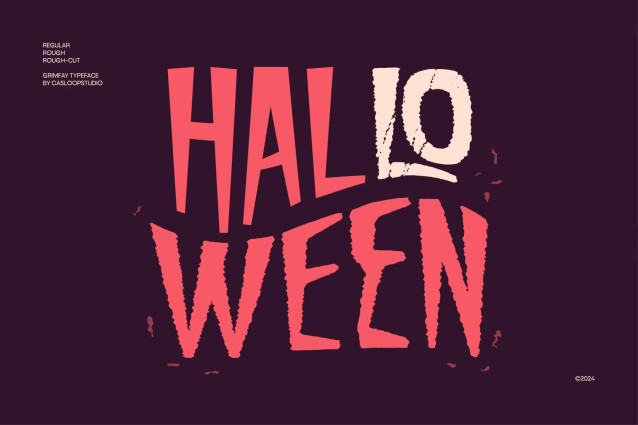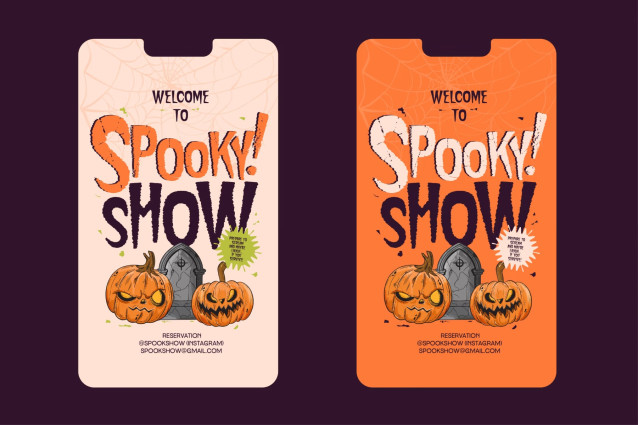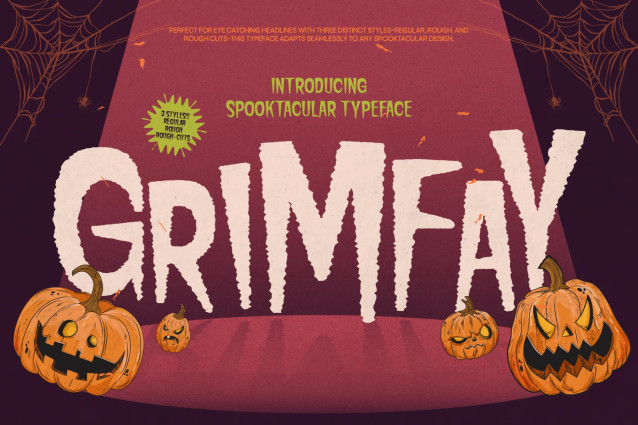
Grimfay – Horror Halloween 3 Fonts
Dive into the chilling world of Grimfay, a unique display decorative typeface that captures the essence of autumn nights filled with horror and terror. Perfect for those who want to evoke a spooky atmosphere, this font is designed to bring your projects to life, from movie posters to branding that stands out with originality.
Grimfay embodies a perfect blend of fear and fun, making it both expressive and legible. With its rough, grunge cuts, this font radiates a cartoonish vibe that is ideal for kids’ Halloween-themed content while still delivering that spine-tingling aura of the unknown. Imagine a zombie poster or a spooky web design—Grimfay sets the perfect tone.
What sets Grimfay apart is its ability to balance playful horror with strong visual impact. This font excels in digital media visuals, making it a go-to choice for text animations and motion graphics. Its bloody, murder-like aesthetics create a memorable impression, ensuring your designs resonate with audiences looking for that thrilling touch.